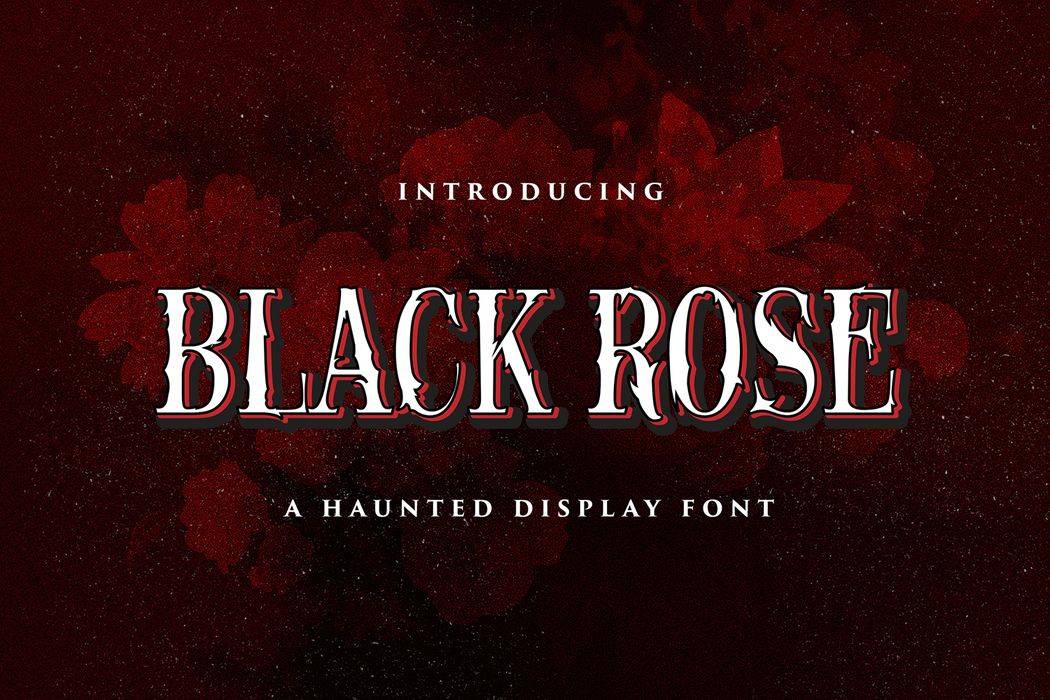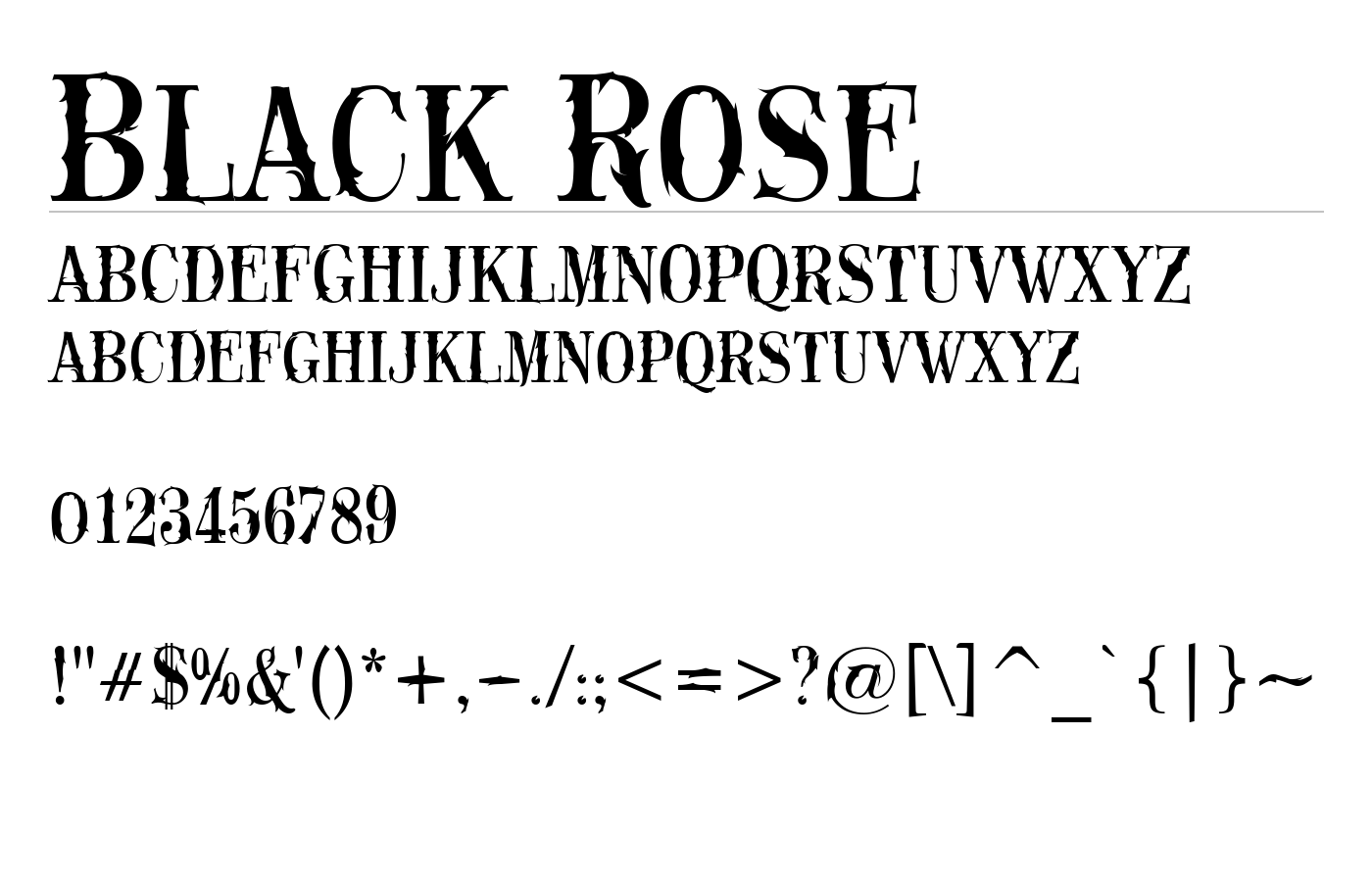
Black Rose is a bold, decorative serif font with a vintage, gothic flair characterized by sharp, thorn-like serifs and high stroke contrast. Its tall, condensed letterforms and intricate details make it ideal for creating dramatic headlines, branding, or packaging that requires a dark, sophisticated aesthetic. This font works best in display settings where its unique personality can stand out and add a touch of elegance mixed with an edgy, mysterious vibe.
Black Rose Font
About Black Rose Font
| Designer | StringLabs |